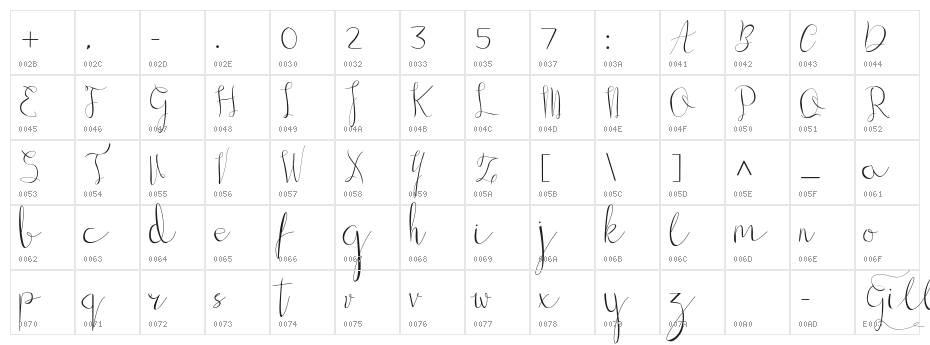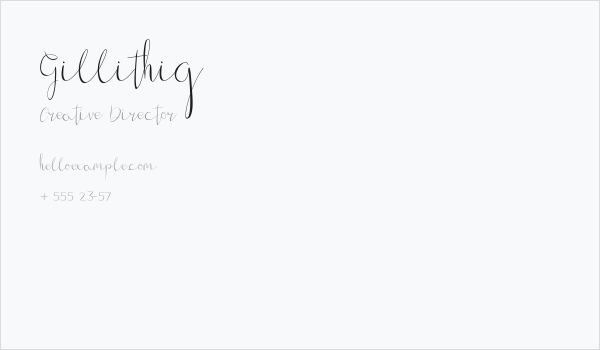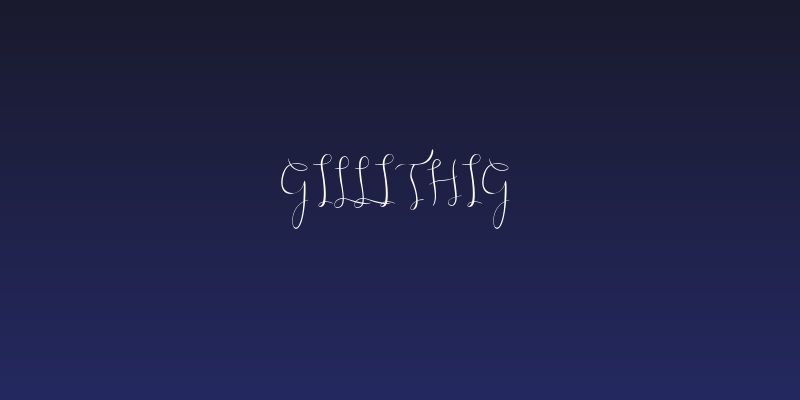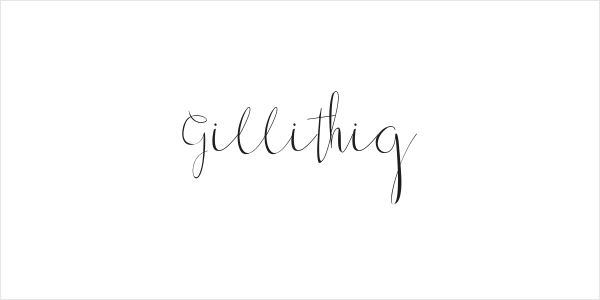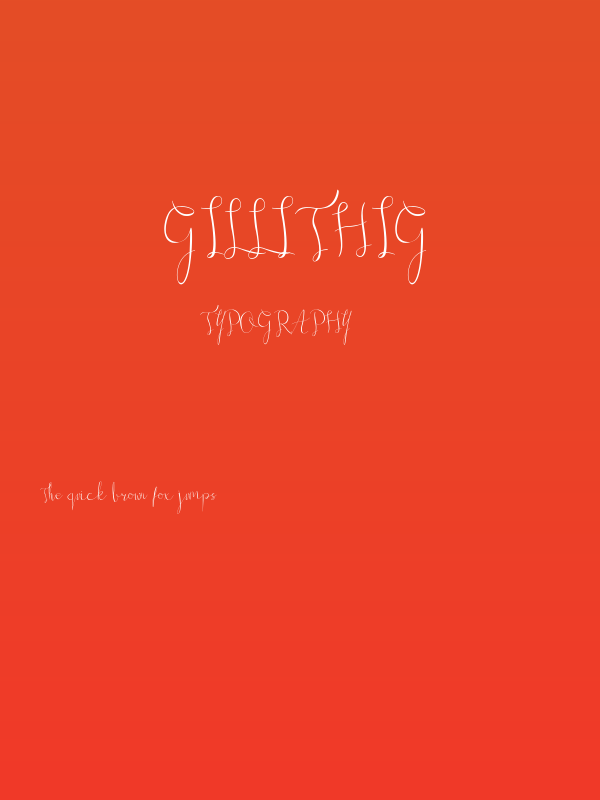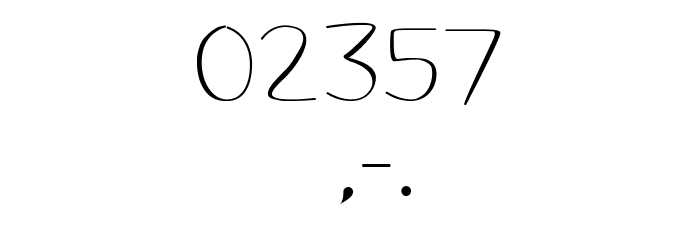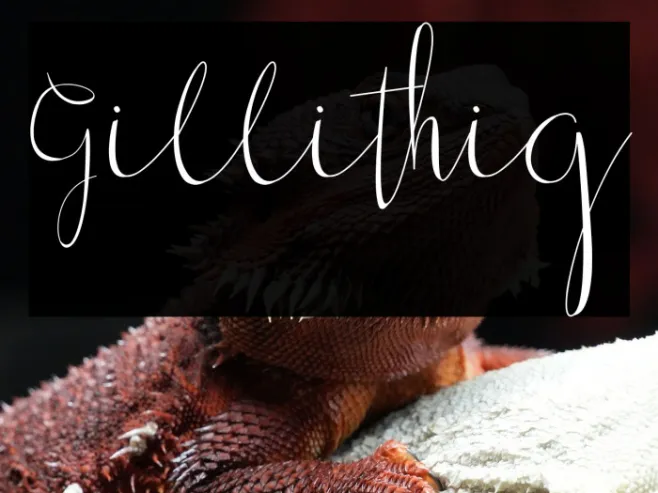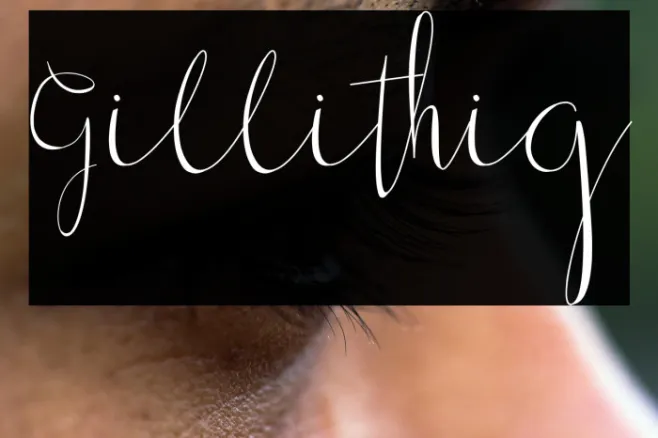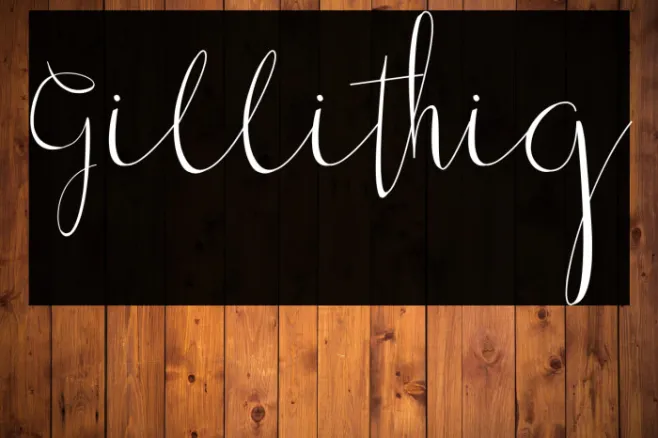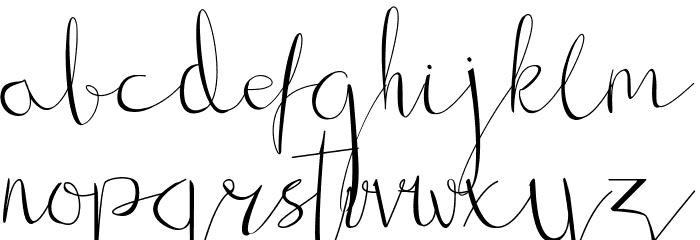
Gillithig Font
Gillithig Description
This font features an elegant and flowing script style, characterized by its delicate and intricate letterforms. The uppercase letters exhibit a graceful, looping design that adds a sense of movement and fluidity. The lowercase letters maintain a consistent style, with elongated ascenders and descenders that enhance the font's overall elegance. The numerals are uniquely styled to complement the alphabet, offering a cohesive look. The font's thin strokes and high contrast between thick and thin lines contribute to its sophisticated appearance. This font is ideal for projects that require a touch of elegance and refinement.